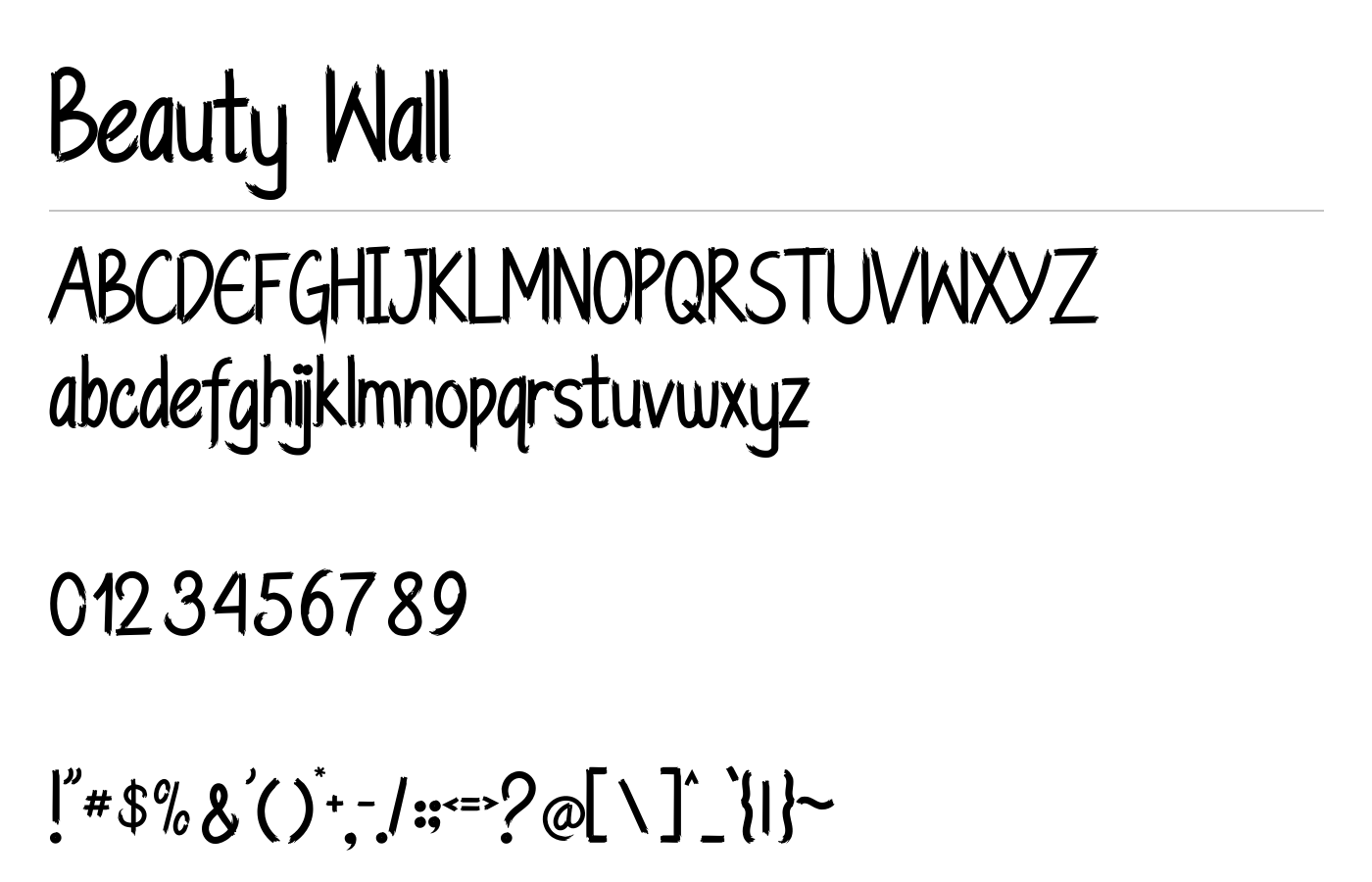
Beauty Wall is a playful, hand-drawn sans serif font with uneven strokes that give it a casual, artistic vibe. Its tall, narrow letterforms and slightly rough texture make it perfect for creative projects, informal branding, and designs that want to feel fun and approachable. This font works well in headlines, logos, and packaging where a friendly, hand-crafted look is desired.
Beauty Wall Font
About Beauty Wall Font
| Font family | Beauty Wall Font |
| Designer | FebrylArully |